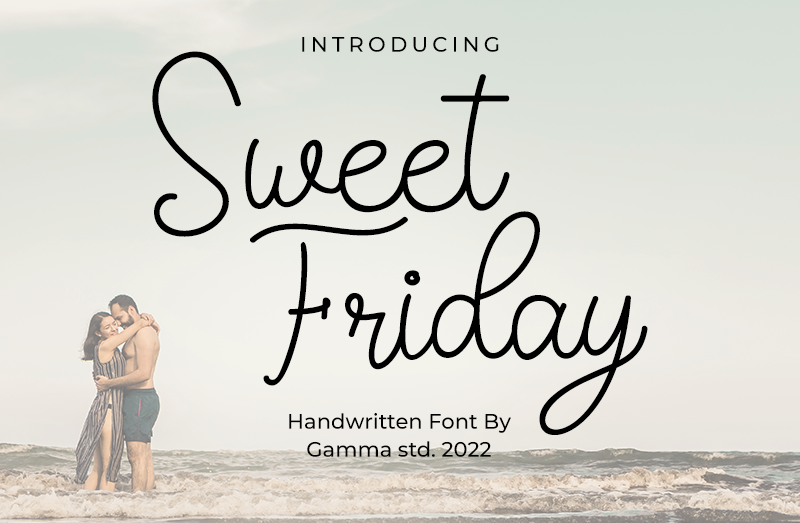
Sweet Friday Font
Designed by Gamma Studio
About Sweet Friday
Sweet Friday is a sweet handwritten font that is made with great care in order to produce the expected outcomes. This font can be used for writing various kinds of products according to their respective needs.